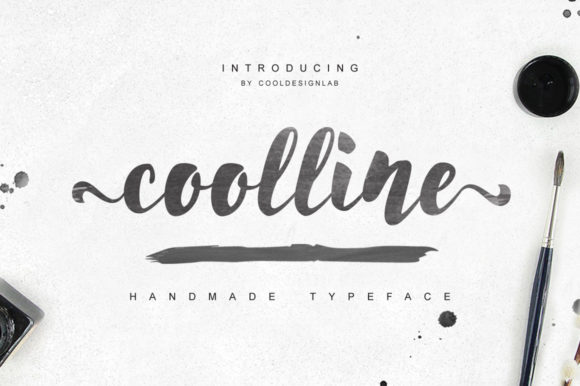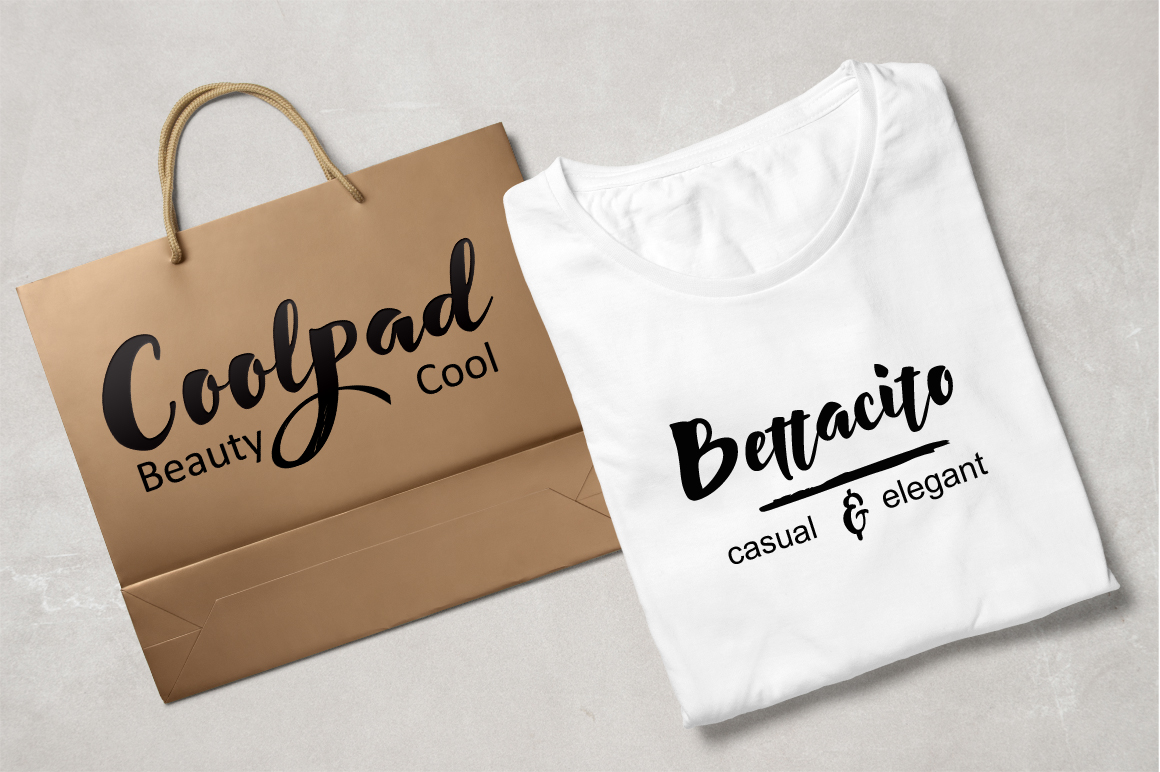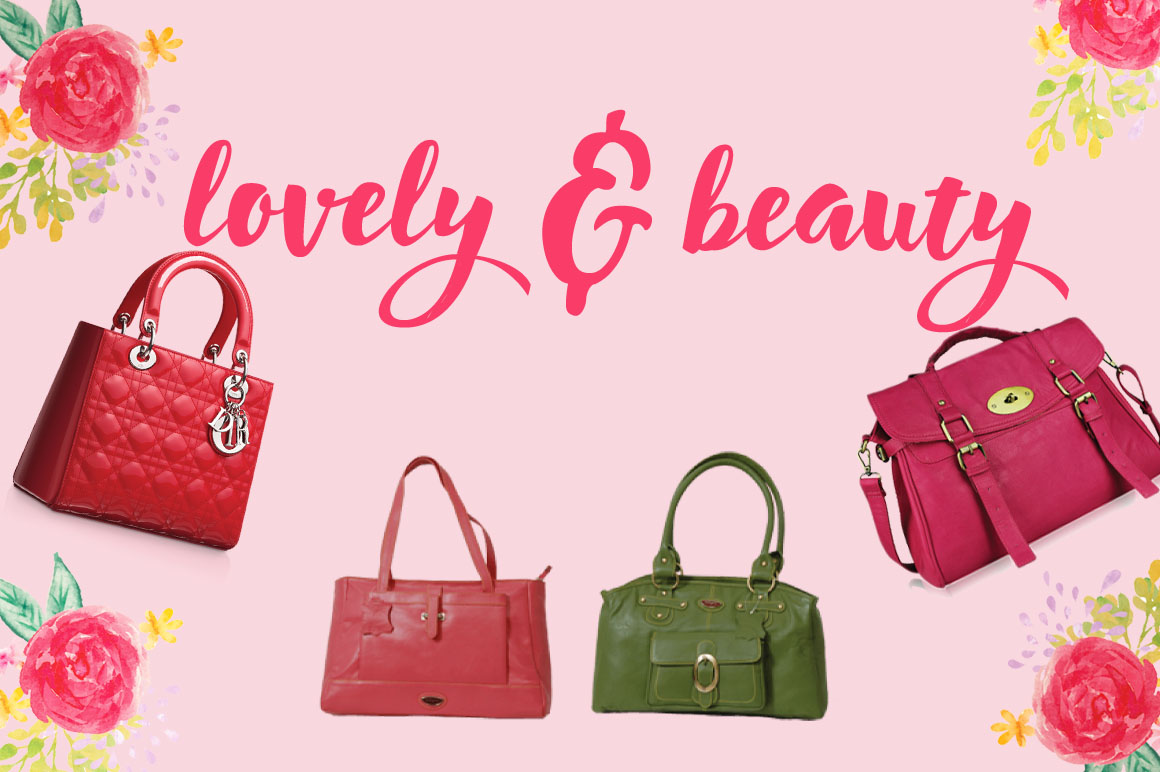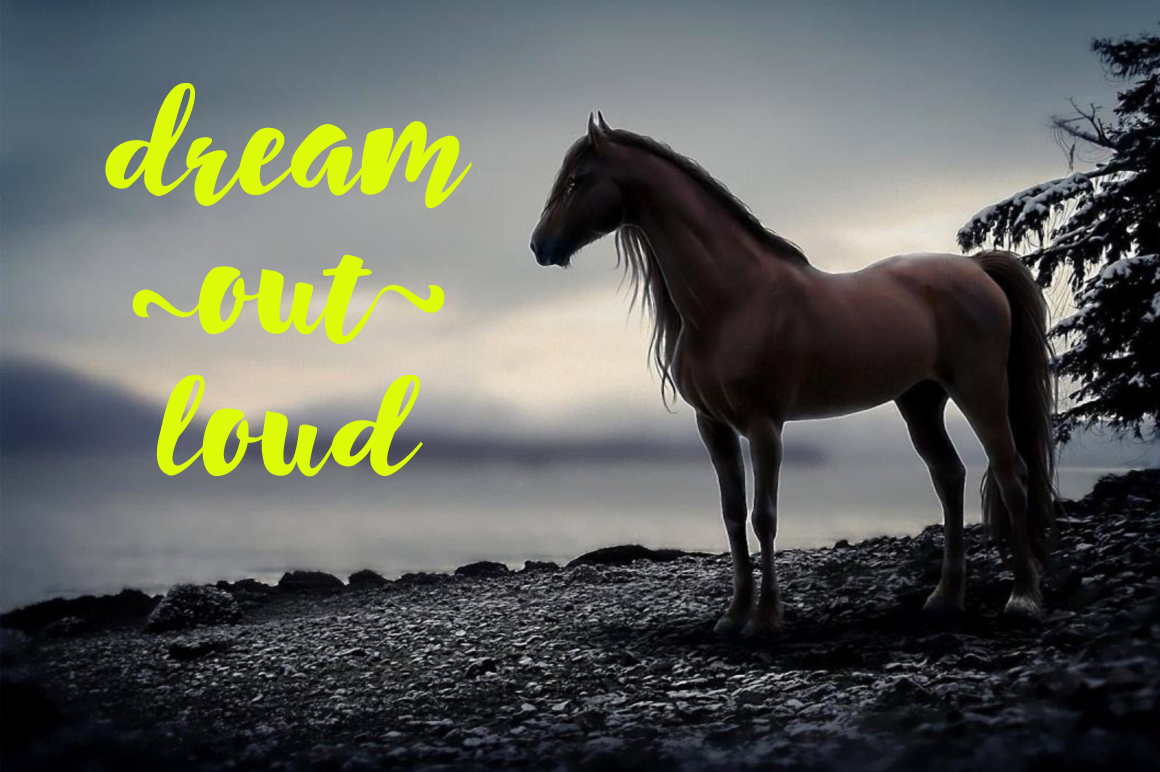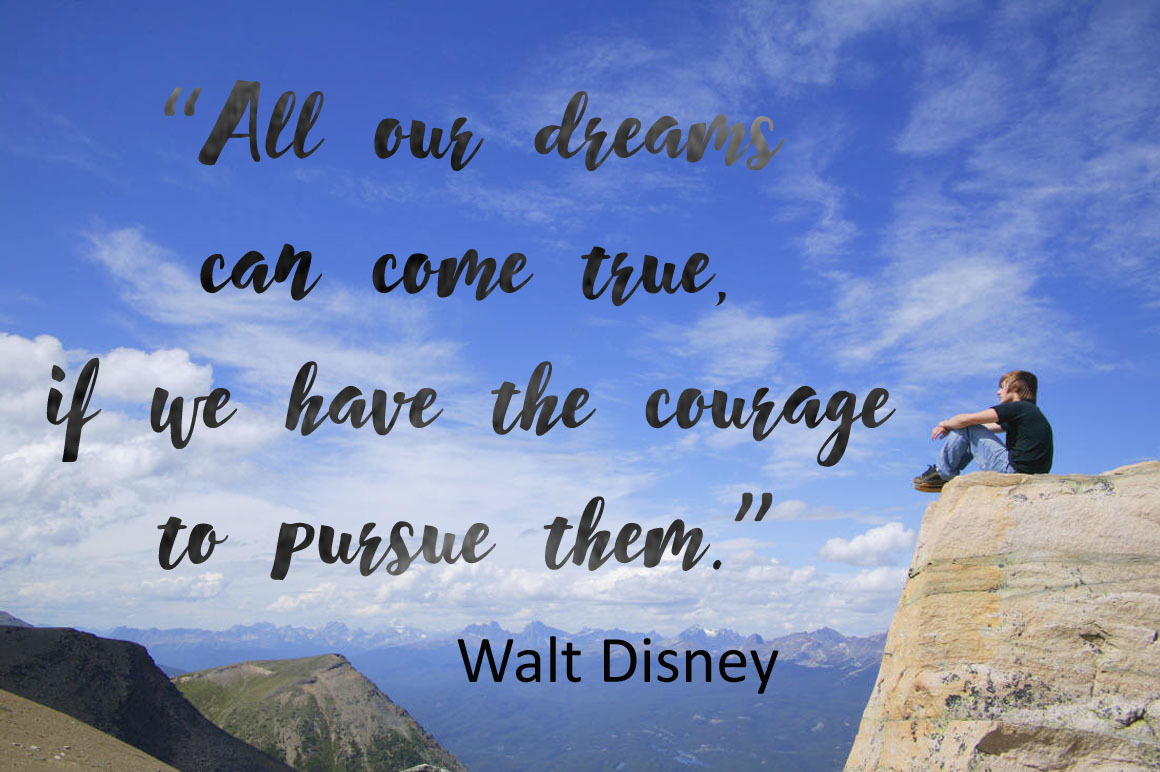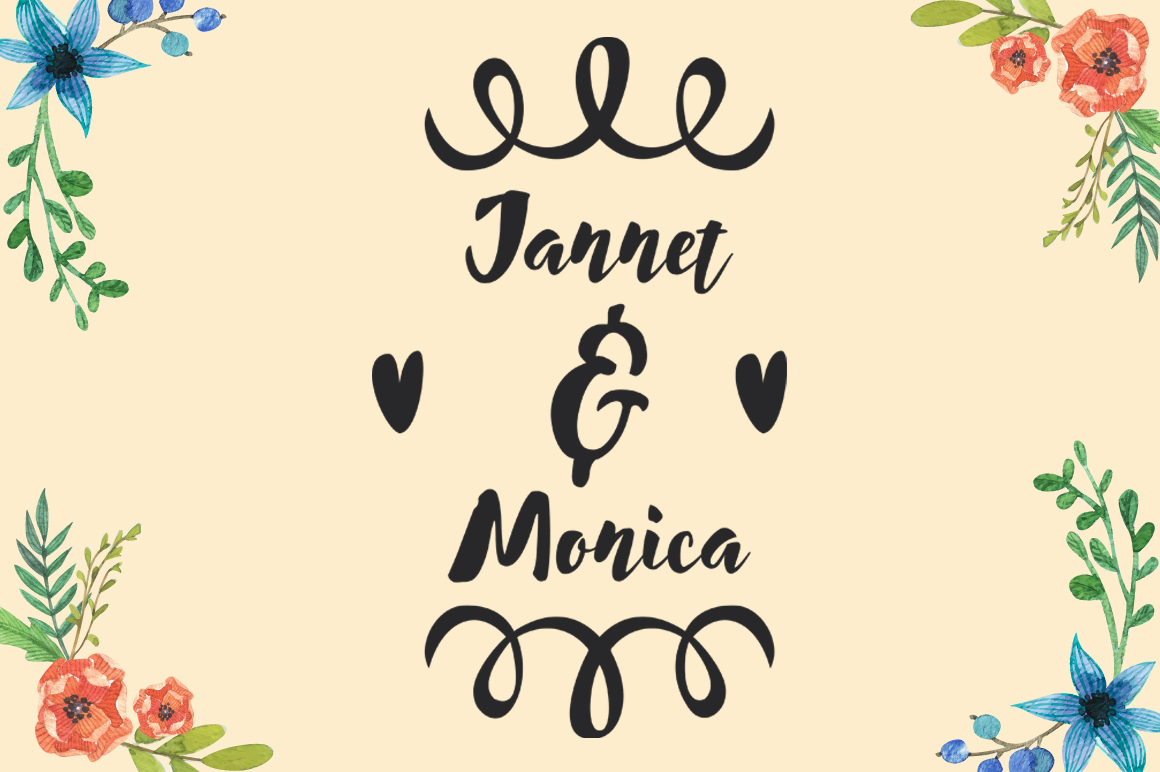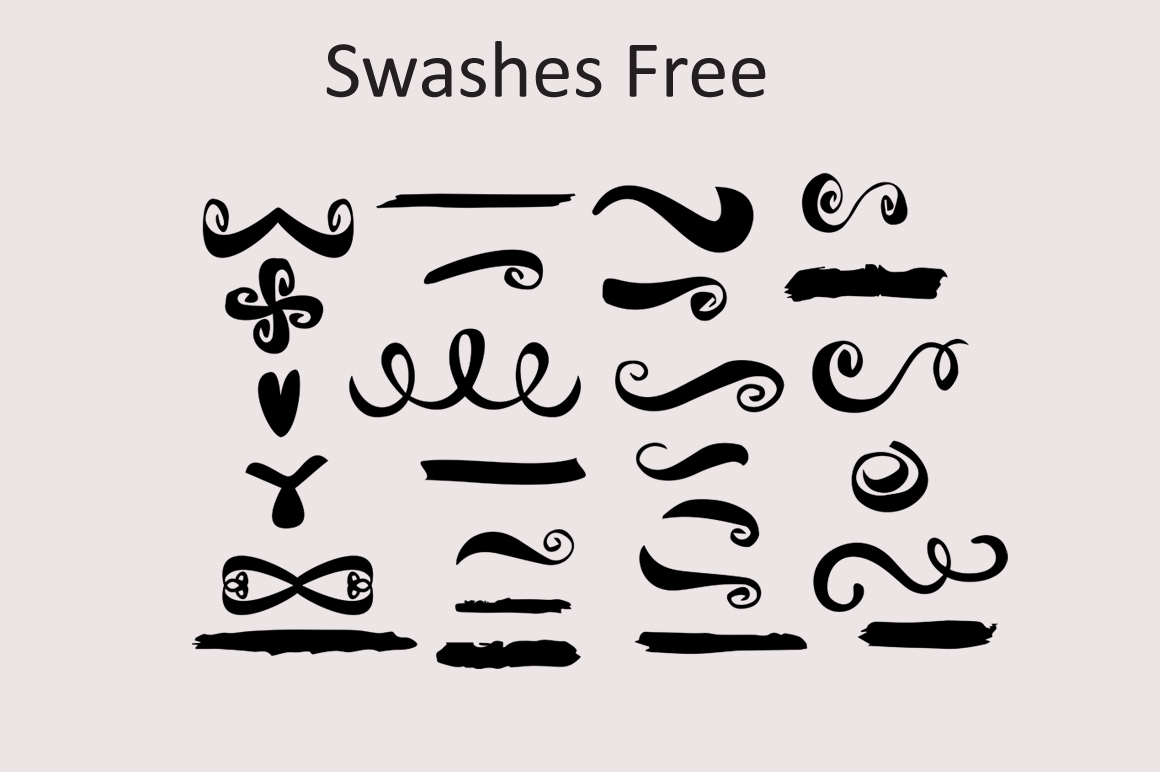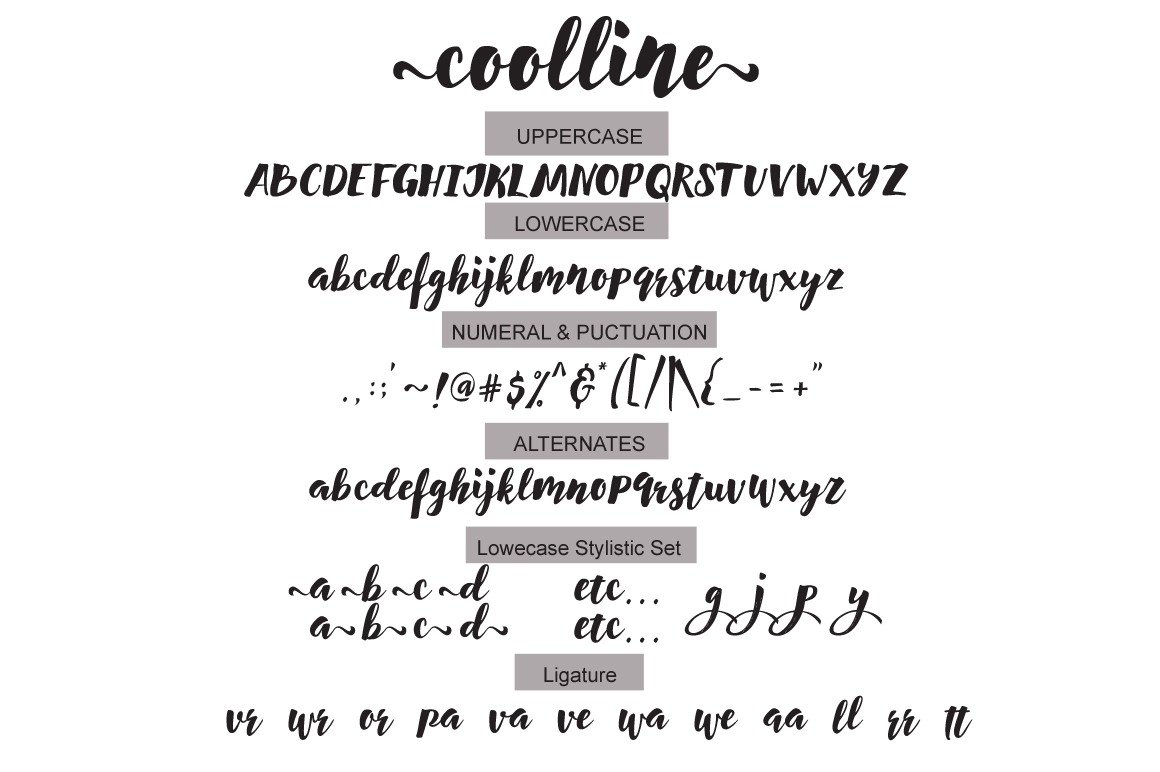
HomeScript FontsCoolline Font Script Fonts Coolline Font FacebookXPinterestWhatsApp Coolline Font Poster 2 Coolline Font Poster 3 Coolline Font Poster 4 Coolline Font Poster 5 Coolline Font Poster 6 Coolline Font Poster 7 Coolline Font Poster 8 About Coolline Font Coolline is a handwritten brush font that is packed with many alternates and swashes. DOWNLOAD ON CREATIVE FABRICAThis font is sold and delivered by Creative Fabrica. Font Canyon may earn a commission if you buy through this link. People also explored Morinim Simple Ink Font Pimjai Oo Font Rainbows Font Albanian Olive Monogram Font Jhoey Washington Font Football Lace Font Butterfly Font Pinky Font 308 0 TagsCoolline Font Previous articleBandet FontNext articleCoquina Clam Font LEAVE A REPLY Cancel reply Comment: Please enter your comment! Name:* Please enter your name here Email:* You have entered an incorrect email address! Please enter your email address here Website: Save my name, email, and website in this browser for the next time I comment. Personal Use Free Rothwell Personal Use Free Read more about this font Quick Count Personal Use Free Read more about this font Pumpkin Type Halloween Font Personal Use Free Read more about this font Lion Teen Personal Use Free Read more about this font BLOG 5 Fonts That Will Dominate Design Trends in 2026 5 Fonts for 2026 That Will Dominate Design Trends Typography plays a critical role in visual communication, and as we look ahead to 2026, itβs... How to Cut Any Font on Cricut: Convert a Font to SVG (Free) How to Install and Use Fonts on Windows, macOS, and Web Projects Elegant Wedding Invitation Fonts β Handwritten & Script Fonts